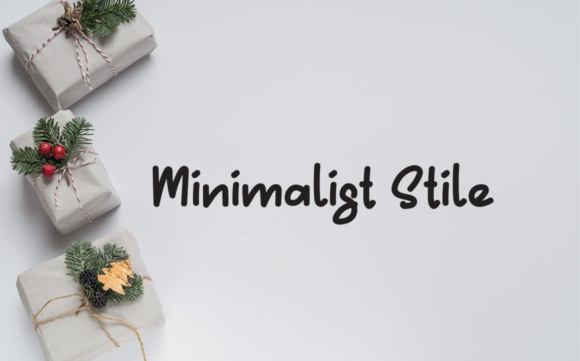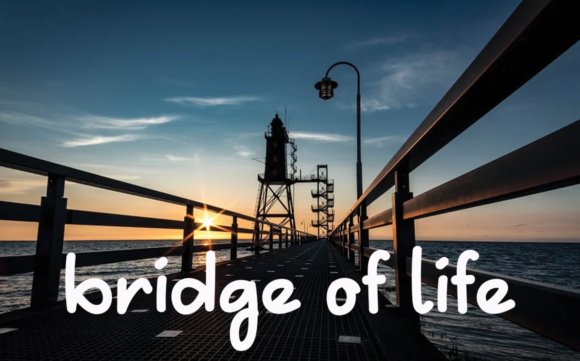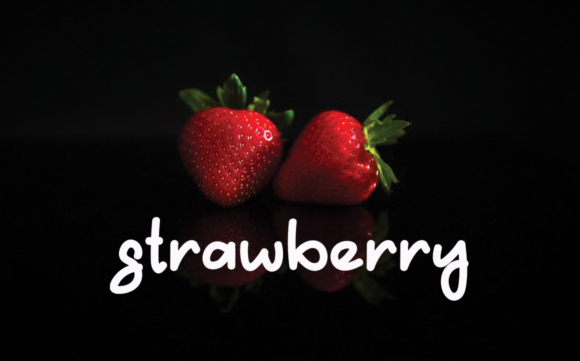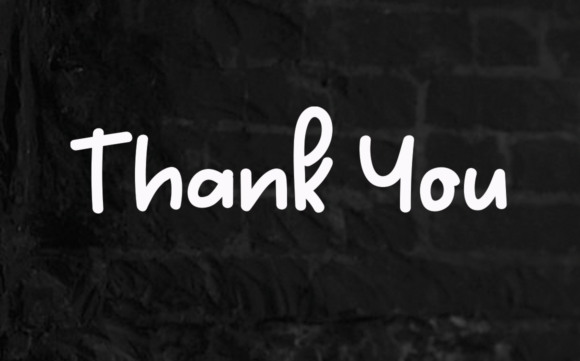
About Graduation Ceremony Font
Graduation Ceremony is a simple, adaptable and casual handwritten font. No matter the topic, this font will be an incredible asset to your fonts’ library, as it has the potential to elevate any creation.